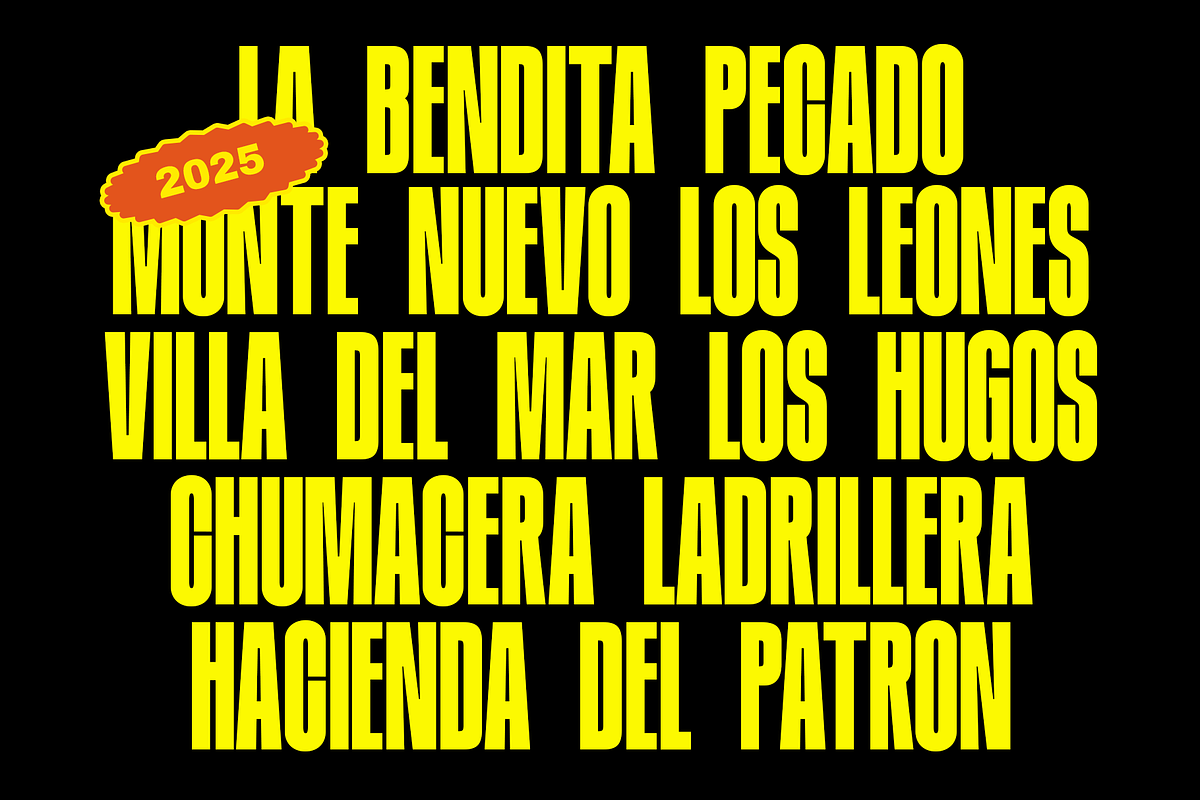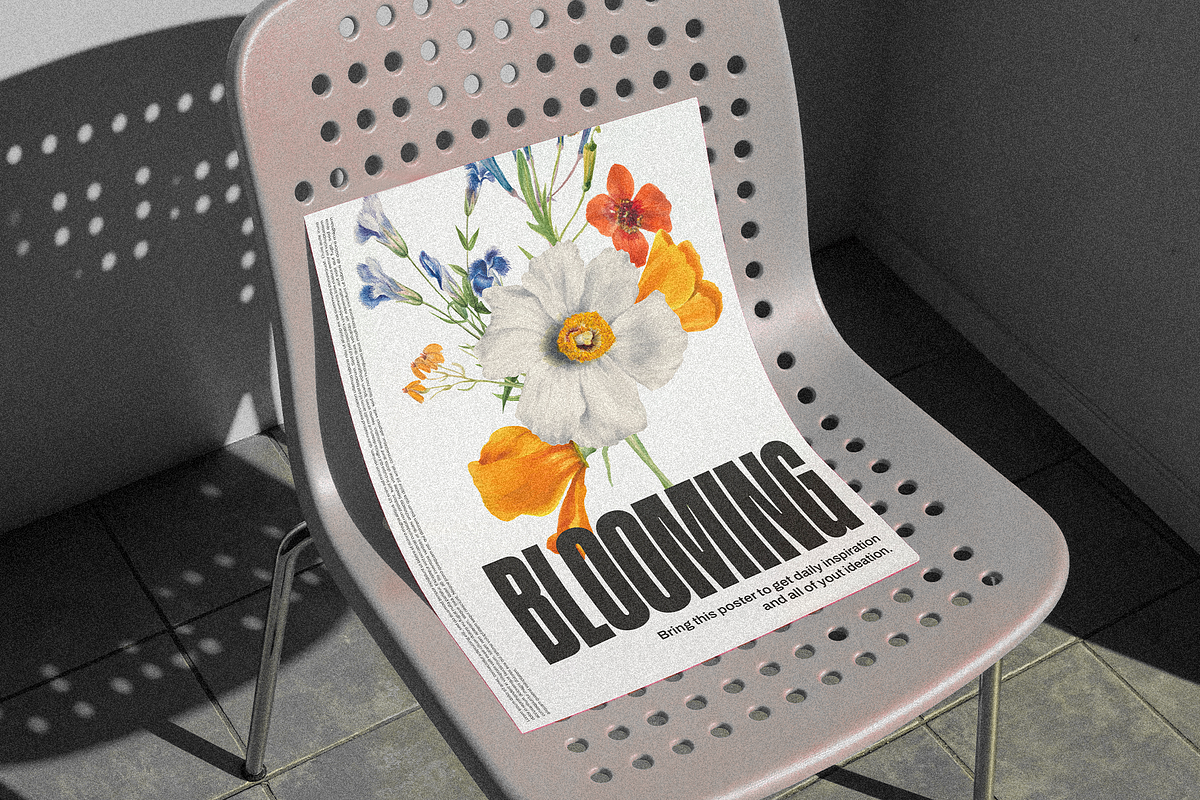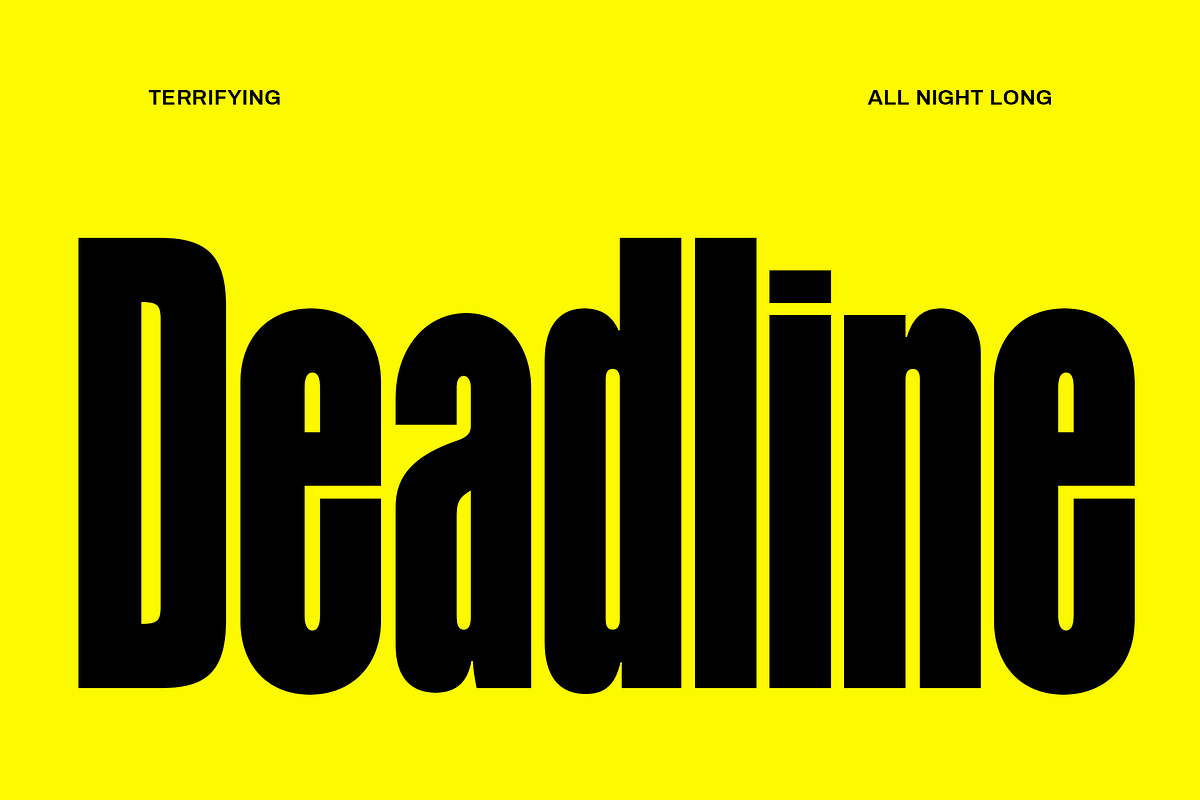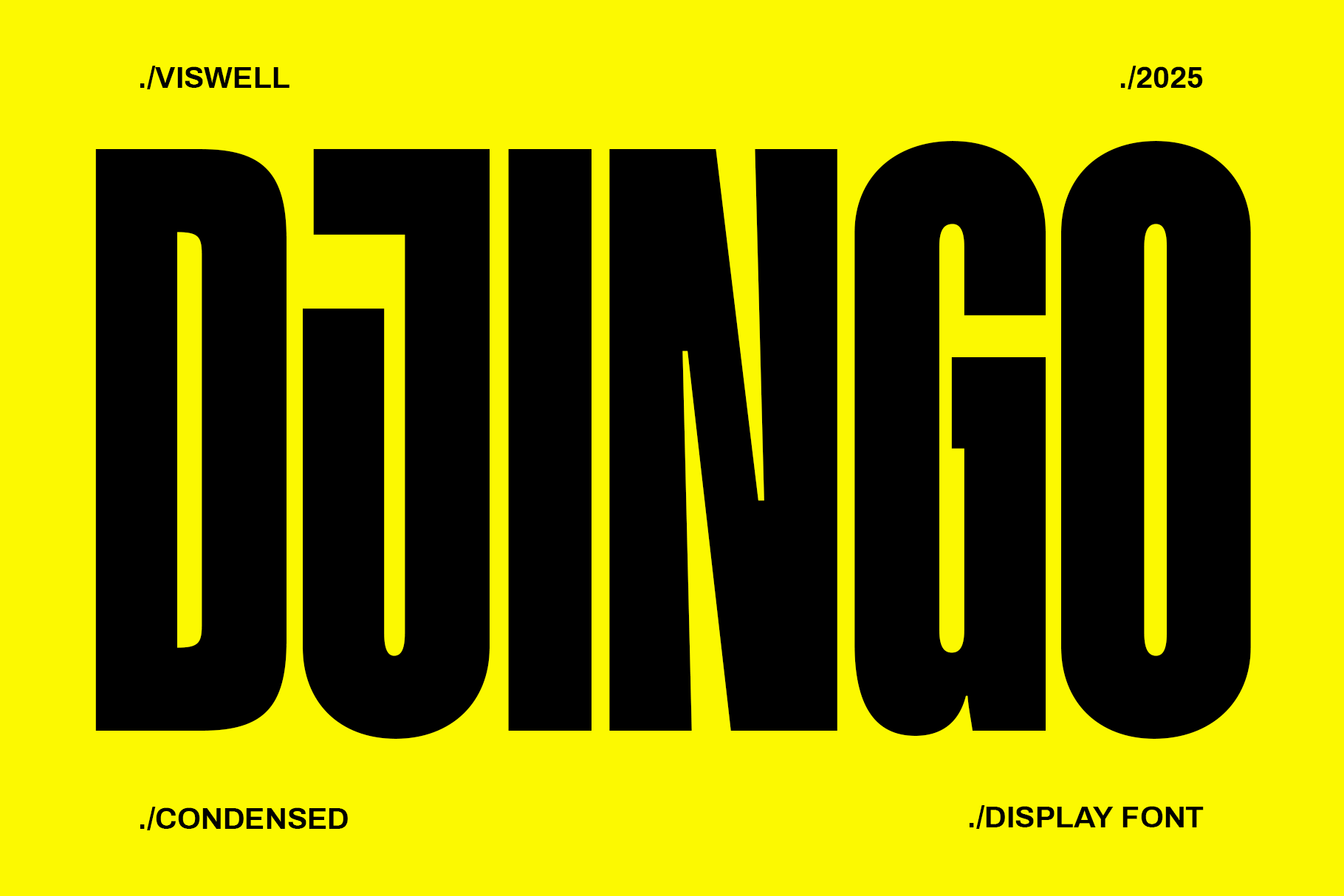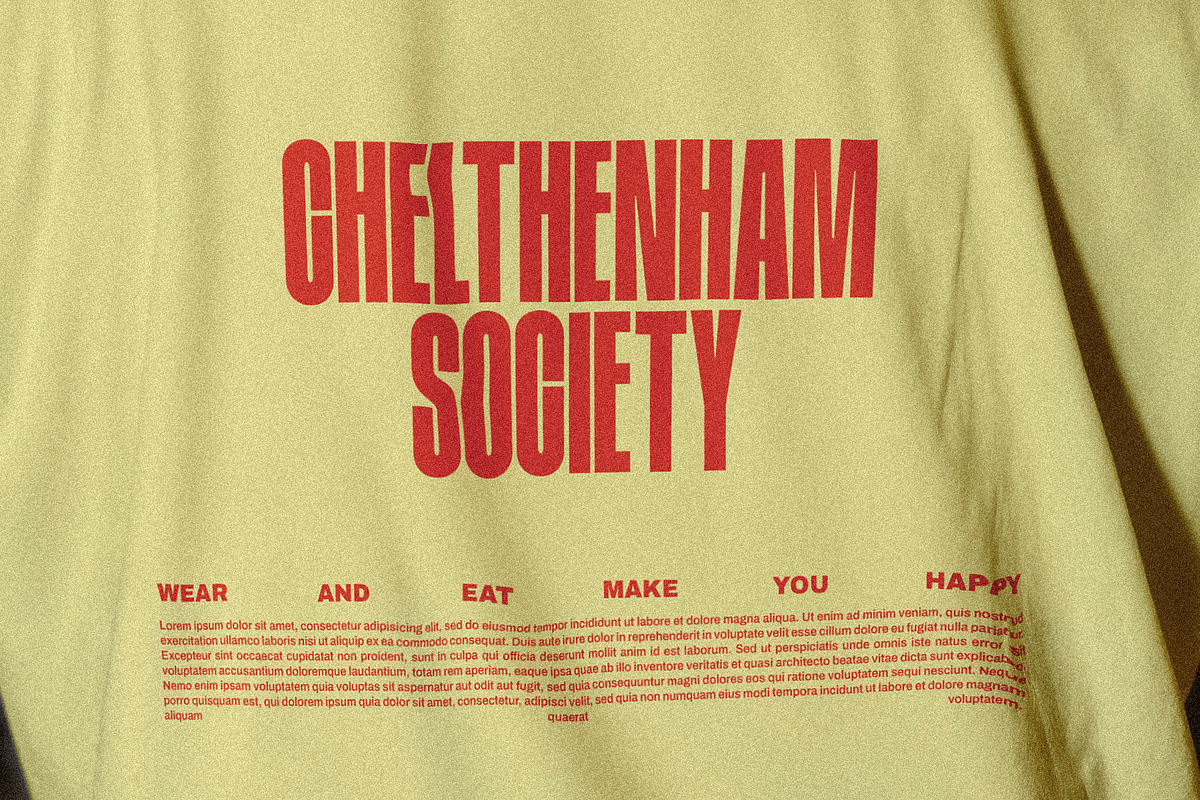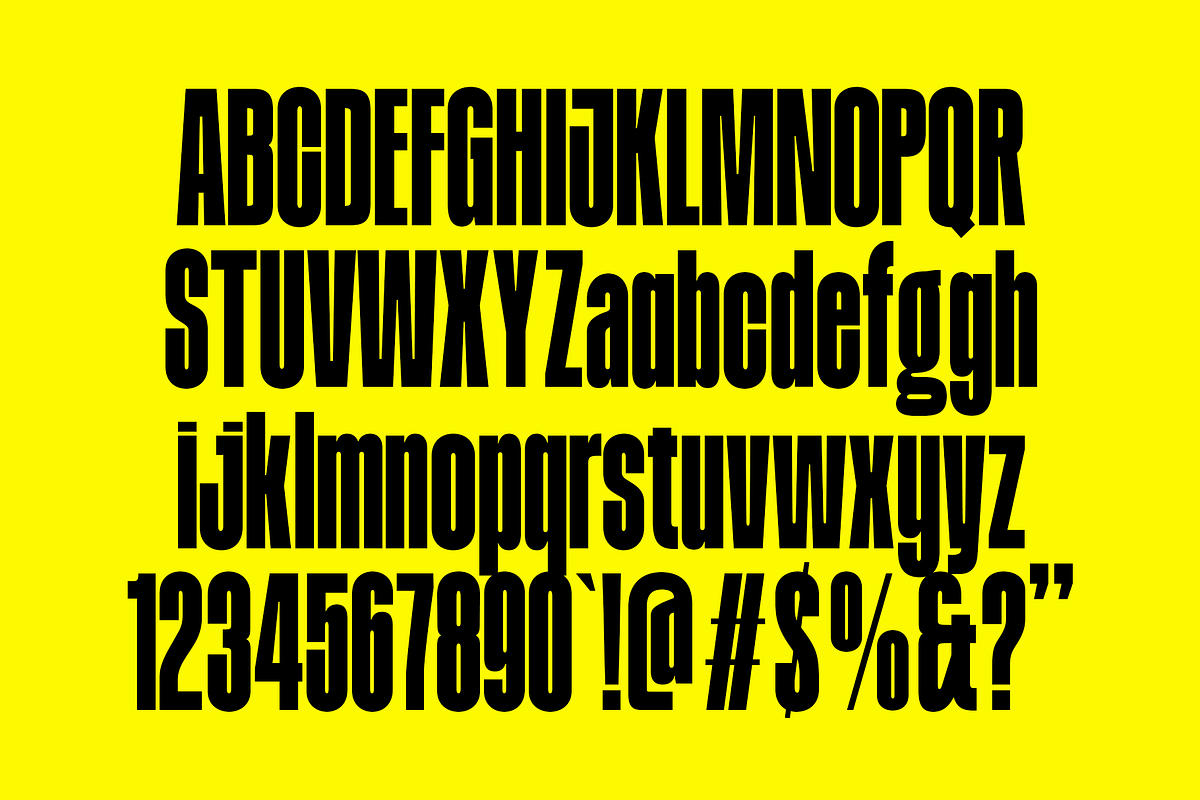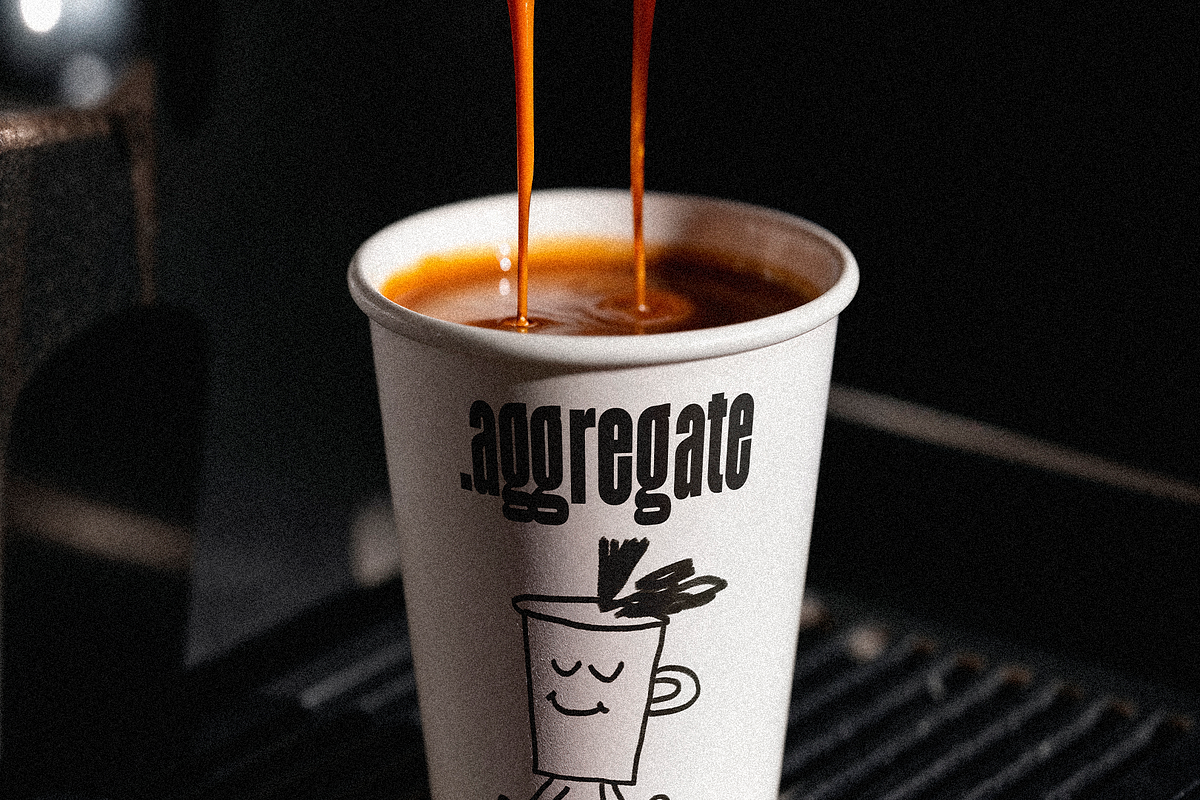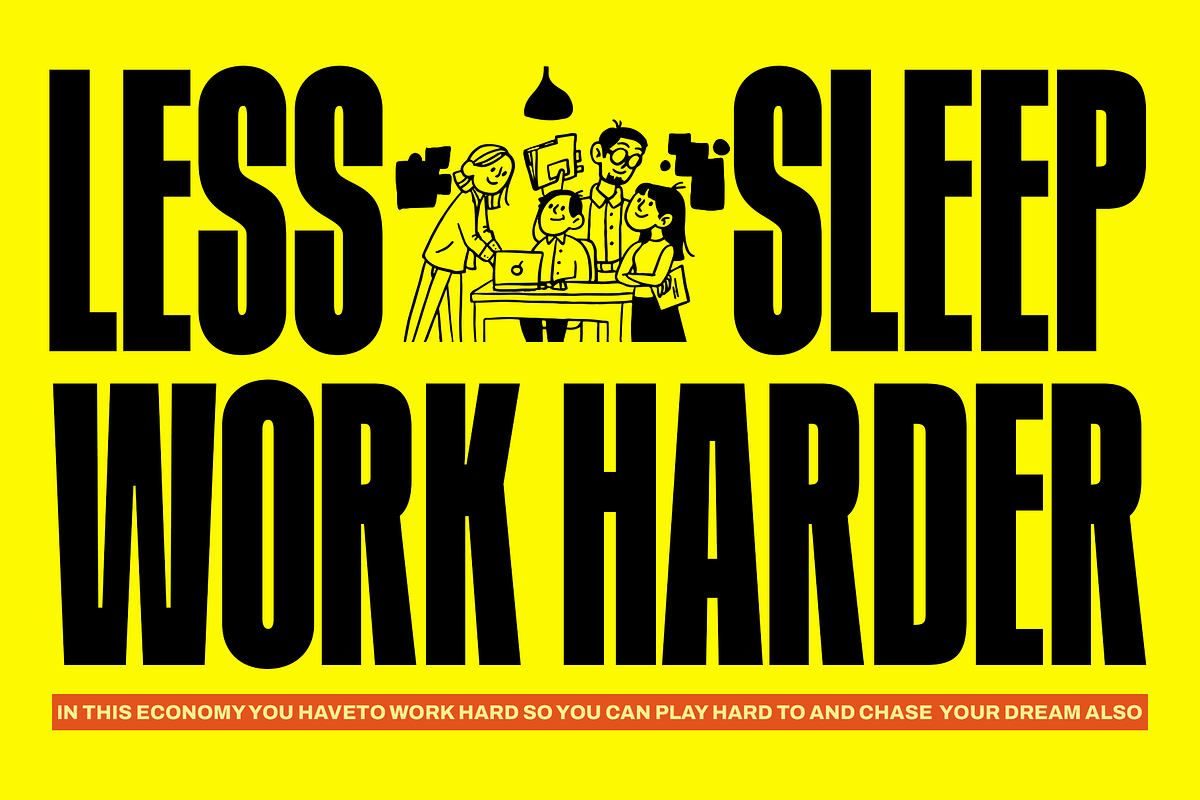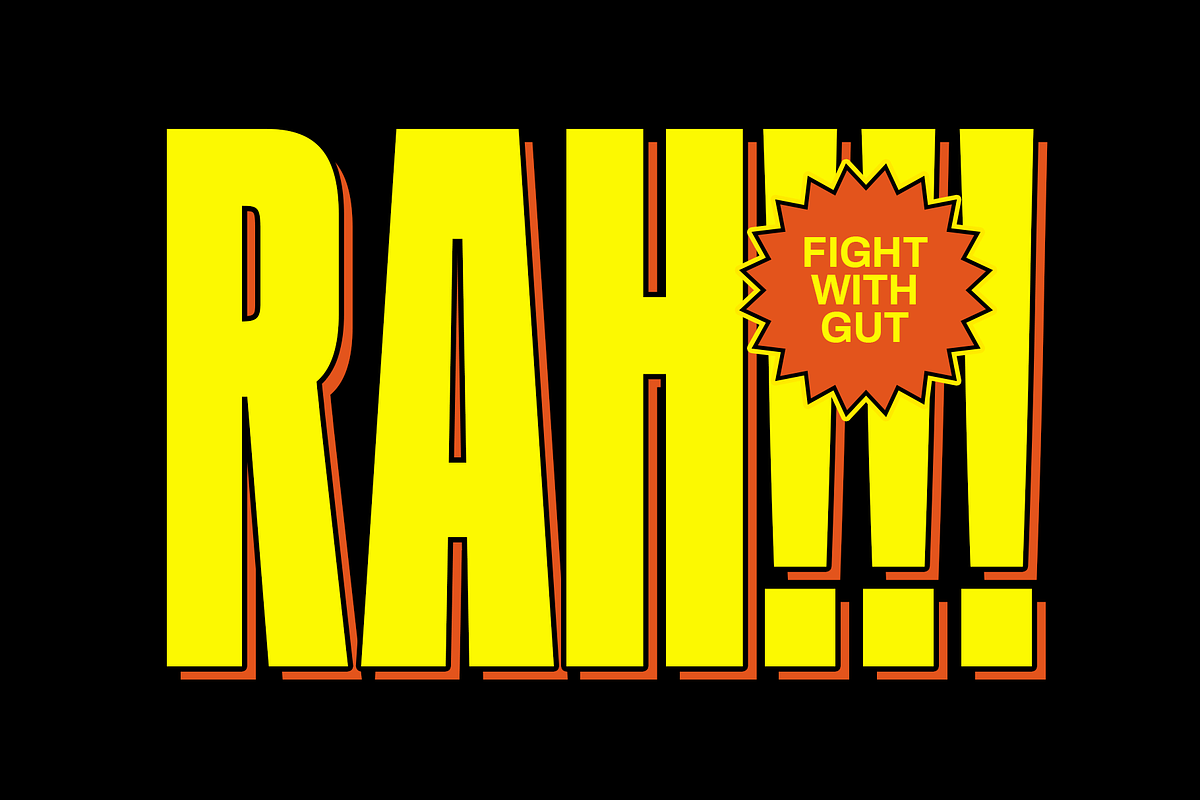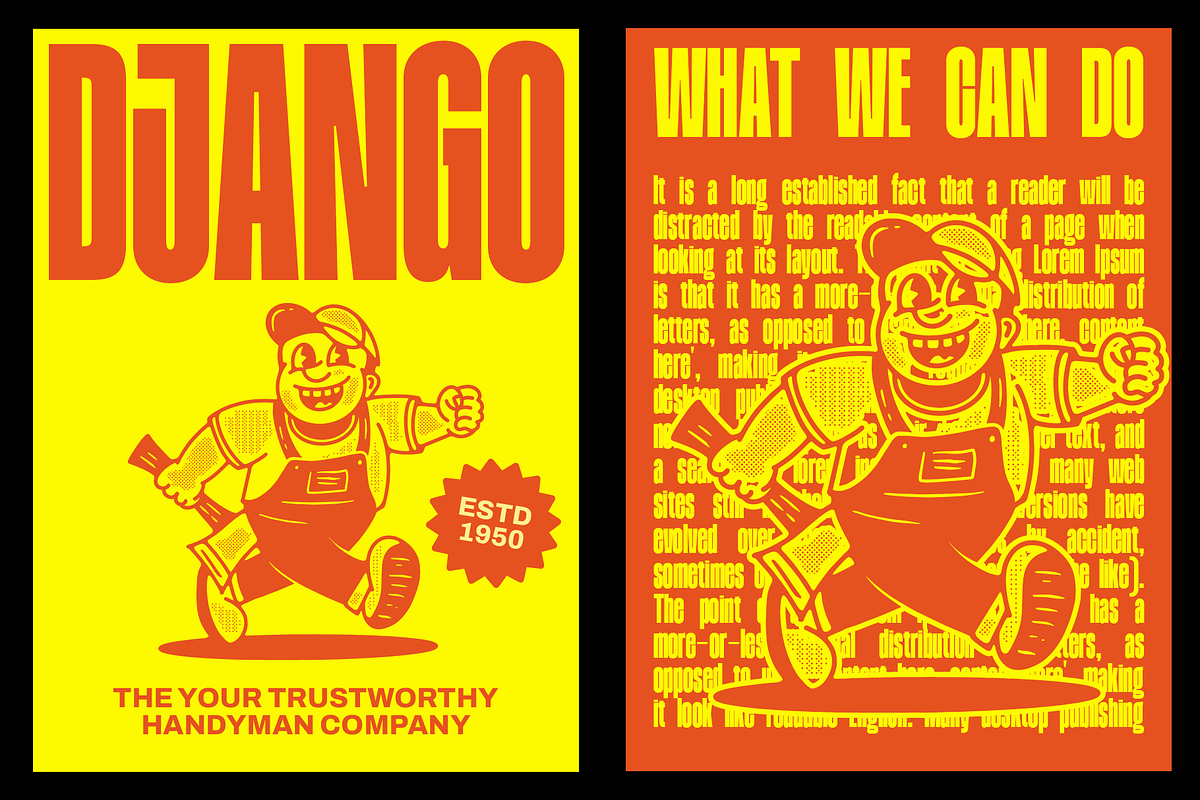
Djingo - Condensed Display Font
Bold, unapologetic, and built for impact — Djingo is a condensed display font that demands attention. Its towering, block-like structure with sharp edges and confident spacing makes it the perfect choice for striking headlines, poster designs, branding, and digital campaigns. With its condensed proportions, Djingo allows you to say more with less space, delivering maximum presence without sacrificing clarity.
Positioned for designers, creatives, and brands who want to project strength and modern sophistication, Djingo carries a fearless energy that resonates in fashion, music, sports, and tech industries. Its commanding look not only grabs attention but also creates a lasting impression. Add Djingo to your type arsenal and make your next project bold, memorable, and impossible to ignore.